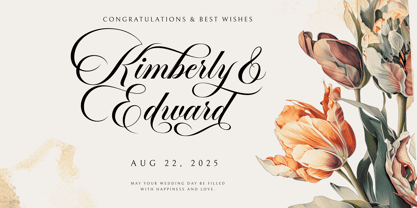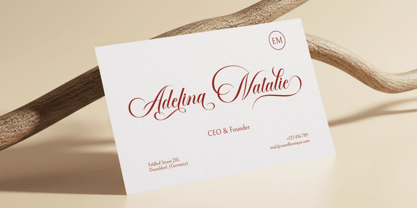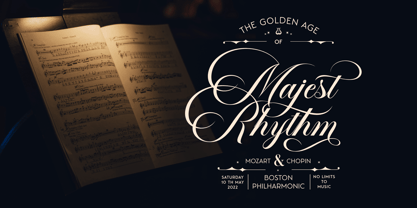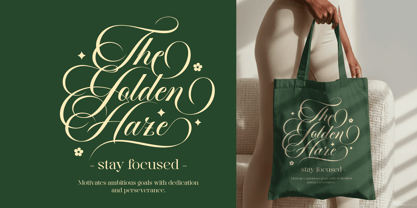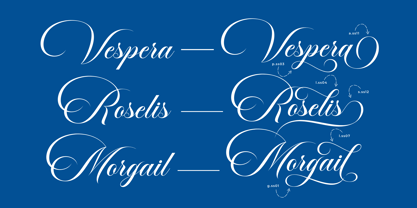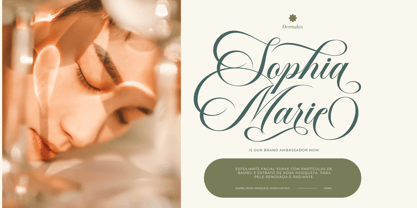
Chandia
by Mans Greback
The Chandia Font Family was designed by Måns Grebäck and published by Mans Greback. Chandia contains 3 styles and family package options. More about this family
Chandia is a dramatic cursive typeface, drawn with high precision and an elegant hand. Flourishing with romantic swashes and long tails, the lettering flows with a confident grace that brings to mind engraved invitations, ballroom dances, and handwritten vows. The uppercase characters are especially expressive, designed with ornamental loops that accentuate the rhythm of the script without losing clarity. Use underscore _ after any word to make a swash. Example: Beautiful_ Or simply use one of the 100 decorative alternates to give a flair to your type work. With both bold presence and gentle curves, Chandia finds balance between traditional calligraphy and modern sophistication. The font is built with advanced functionality and guaranteed top-notch quality, containing stylistic and contextual alternates, ligatures and more automatic and manual features; all to give you full control and customizability. It has extensive lingual support, covering all Latin-based languages, from North Europa to South Africa, from America to South-East Asia. It contains all characters and symbols you'll ever need, including all punctuation and numbers. Designed by Mans Greback, a prolific type artist known for his expressive lettering and technical craftsmanship.